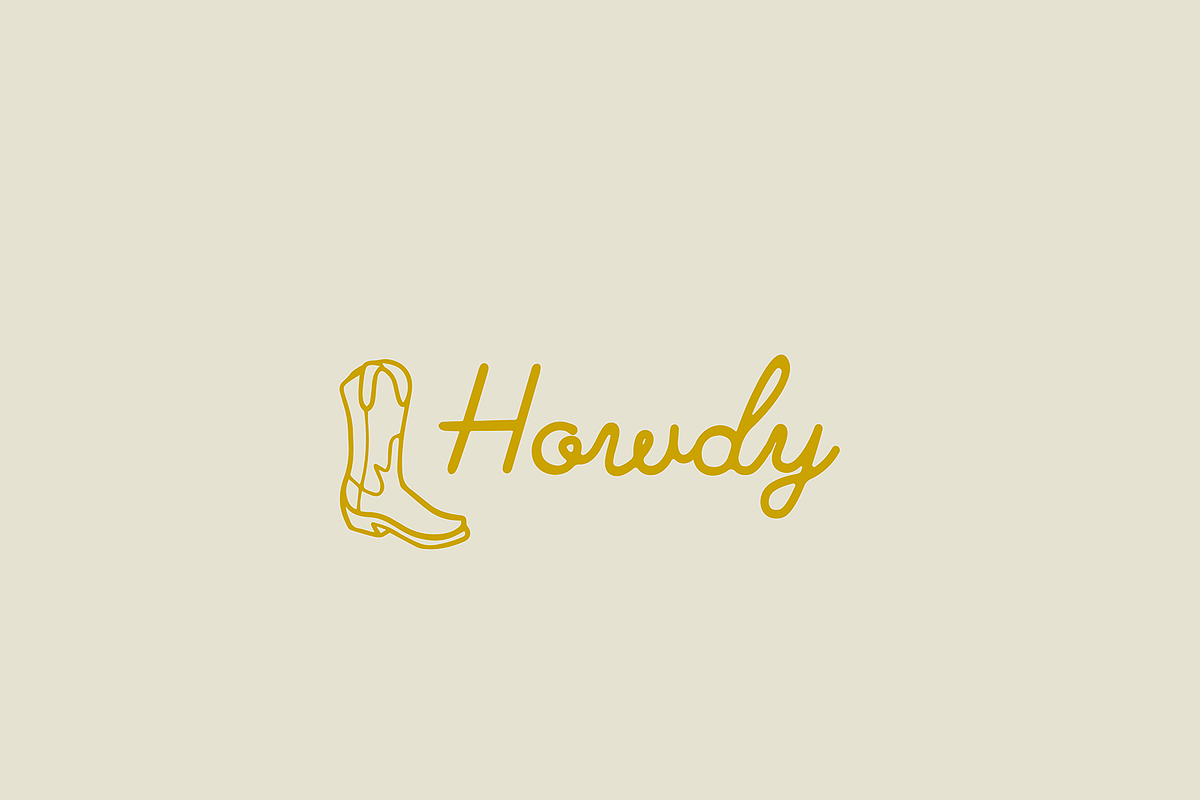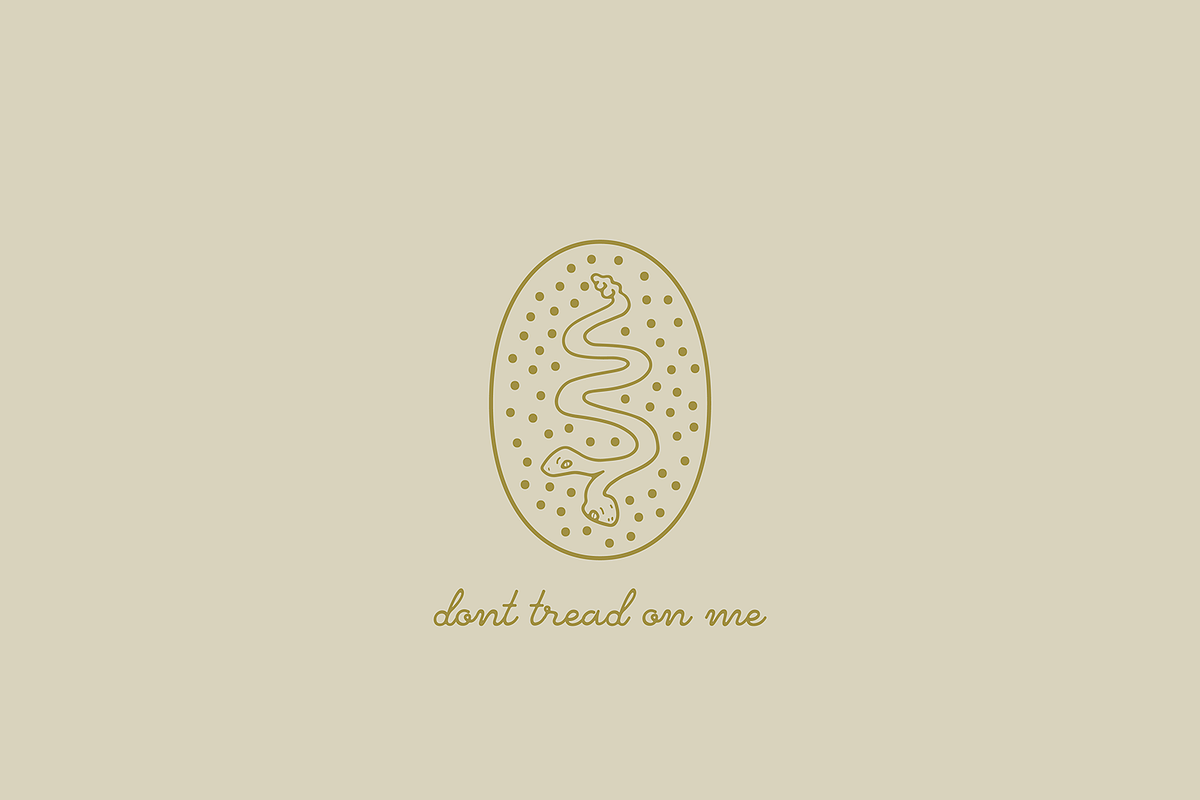
Rattlesnake
A hand lettered script typeface for all your (western) needs. You know that feeling when night is falling, the fire is glowing, and the stories are flowing? Yeah, that's Rattlesnake. Let the words flow into your project with this font.